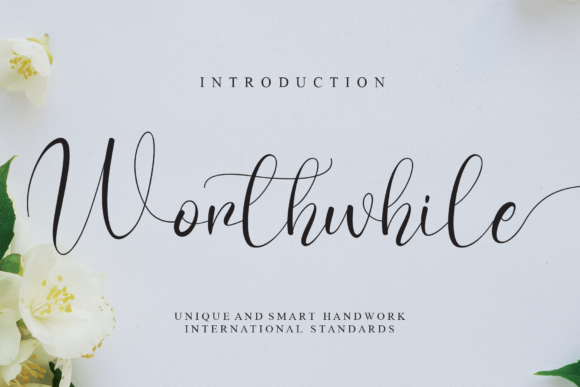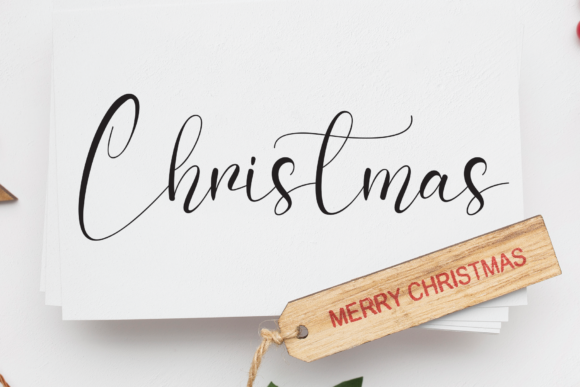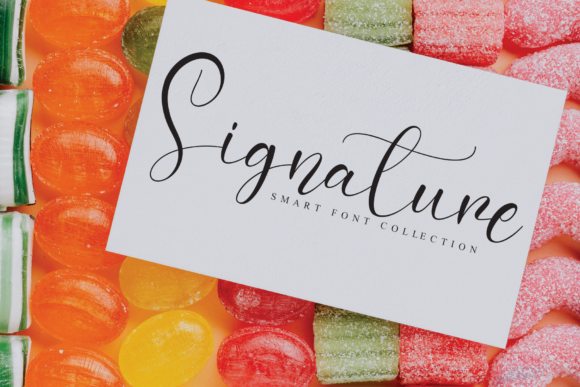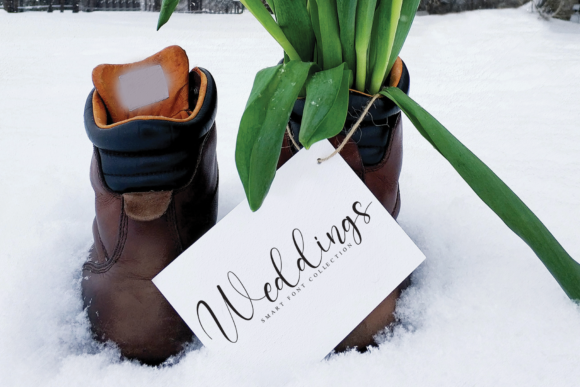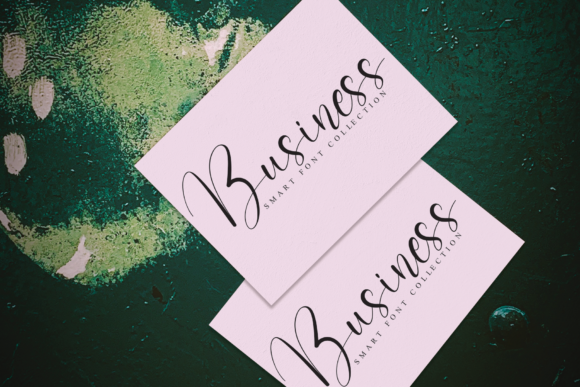
Worthwhile Font
About Worthwhile Font
Worthwhile is a delicate handwritten font. Fall in love with its completely different and timeless style and use it to create spectacular designs!